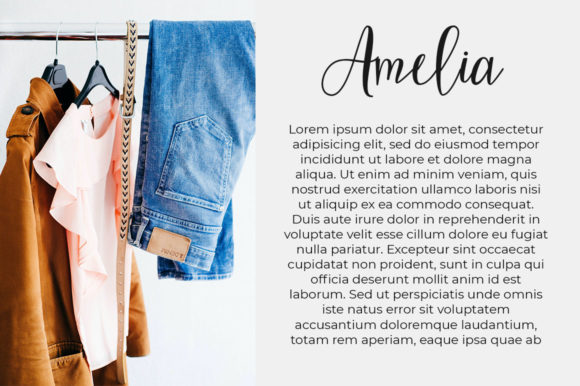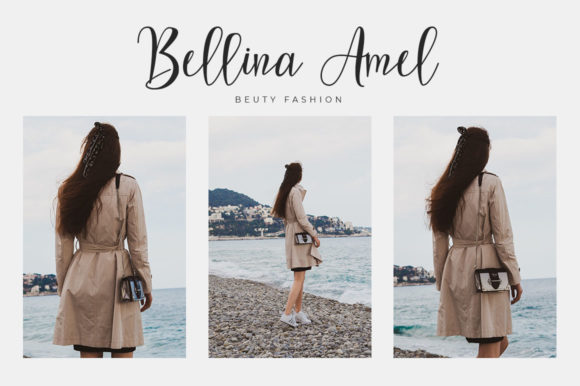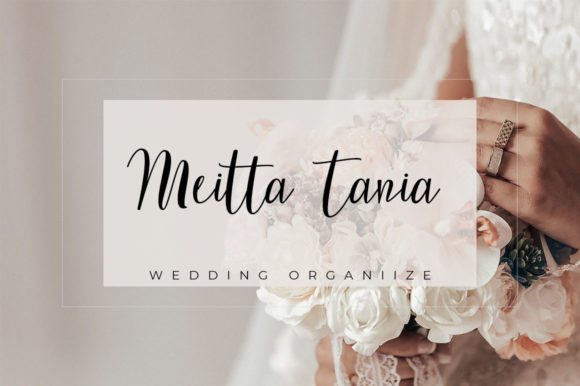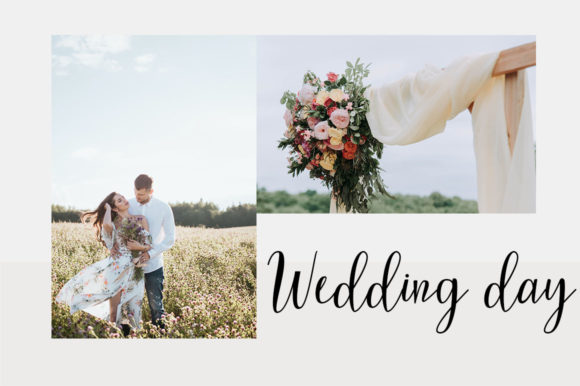
Unlock the Magic of Amelliya Font
Have you ever found yourself stuck in front of a blank page, desperately searching for the perfect font to bring your design to life? It’s a familiar feeling for many creatives, but what if I told you that the solution lies in a beautiful script font that’s been waiting to make its mark?
Meet Amelliya Font, a stunning script font that’s designed to add a touch of elegance and sophistication to any design. Whether you’re working on a wedding invitation, a thank you card, or a logo, Amelliya Font is the perfect choice to give your project a personalized style. With its lovely flow and versatility, this font is a valuable addition to any designer’s toolkit.
Key Features of Amelliya Font
- Font Family: Amelliya
- Font Style: Script, Calligraphy
- Character Count: 300+ glyphs, including Latin, Cyrillic, and Greek alphabets
- Font Size: Available in 4 different font sizes ( Regular, Bold, Italic, Bold Italic )
- Resolution: High-resolution fonts suitable for print and digital use at 300 DPI and above
Amelliya Font Review
Overall, I’m quite impressed with the Amelliya Font. It’s a beautifully crafted script font that exudes elegance and sophistication ✨. The flowing lines and organic feel make it perfect for adding a touch of whimsy to your designs.
Here are some of the things that I think work well with this font:
- Unique letterforms that add visual interest ✨
- High-quality vector graphics that maintain their crispness even at large sizes ✨
- Extensive language support, making it a great choice for multilingual projects ✨
However, I do have a few concerns about the Amelliya Font:
- Some of the characters can be quite difficult to read, especially in smaller sizes ⚠️
- The font may not be suitable for projects that require a lot of bold or condensed text, as it can become quite cluttered ⚠️
Despite these limitations, I think the Amelliya Font is a great choice for designers who want to add a touch of sophistication to their projects. With a little creative license, you can work around the limitations and create some truly stunning designs.
For best results, use Amelliya font for titles, headings, and body text in creative and elegant designs.
Amelliya font pairs well with modern and minimalist design styles.
Alternatives to Amelliya Font for Designers
The Great Vibes Font is a beautiful, handwritten script font that is perfect for adding a touch of elegance and sophistication to your designs. It is ideal for use in branding, packaging, and advertising materials where a unique and eye-catching font is needed. Compared to Amelliya Font, Great Vibes Font has a more organic and free-flowing feel, making it suitable for designs that require a more artistic and creative touch.
The Alex Brush Font is a elegant and refined script font that is perfect for use in high-end branding, packaging, and advertising materials. It is ideal for designers who want to create a sense of luxury and sophistication in their designs. Compared to Amelliya Font, Alex Brush Font has a more refined and polished feel, making it suitable for designs that require a high level of professionalism and elegance.
The Carolyna Pro Font is a modern and sophisticated script font that is perfect for use in branding, packaging, and advertising materials. It is ideal for designers who want to create a sense of style and sophistication in their designs. Compared to Amelliya Font, Carolyna Pro Font has a more modern and edgy feel, making it suitable for designs that require a bold and contemporary touch.
The Ostrich Sans Font is a modern and elegant sans-serif font that is perfect for use in branding, packaging, and advertising materials. It is ideal for designers who want to create a sense of simplicity and clarity in their designs. Compared to Amelliya Font, Ostrich Sans Font has a more minimalist and clean feel, making it suitable for designs that require a high level of readability
Exploring Amelliya Font in Creative Projects
A unique quote art piece that combines Amelliya Font with watercolor illustrations.
To use Amelliya Font in this project: